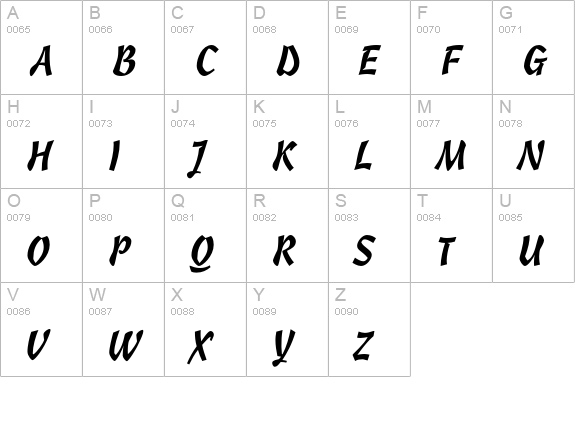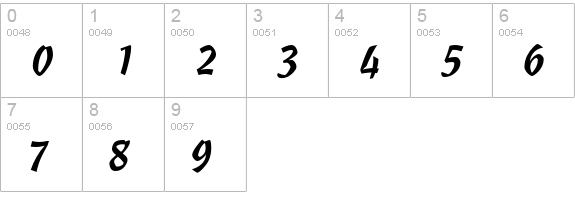
Cascade Script Font Details
Introducing Cascade Script, a stunning and elegant font that exudes sophistication and modernity. Perfect for adding a touch of luxury to your designs, this font features graceful, flowing lines and exquisite details that will captivate any audience. The Cascade Script font is versatile and can be used for a variety of projects, from branding and packaging to invitations and social media graphics. Best of all, Cascade Script is available for free download at FontsMarket.com. This means you can elevate your designs without breaking the bank. Don't miss out on this opportunity to add a touch of glamour to your projects with the Cascade Script font. Download it today and let your creativity cascade into new heights.